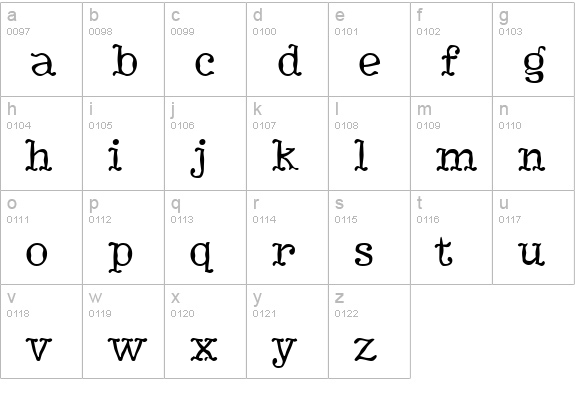
Jukebox Font Details
Jukebox font is a stylish and versatile typeface that exudes a retro charm with a modern twist. Its bold yet playful design makes it perfect for a wide range of creative projects, from posters and flyers to logos and branding. The unique letterforms and quirky details of Jukebox font will surely catch the eye and add a touch of personality to any design. The best part? Jukebox font is completely free to download at FontsMarket.com. This means you can easily access this fantastic font without breaking the bank. Whether you're a professional designer looking for a fresh new font or a hobbyist experimenting with typography, Jukebox font offers the perfect blend of style and affordability. Don't miss out on this fantastic opportunity to enhance your designs with the charming Jukebox font – download it today and let your creativity shine!